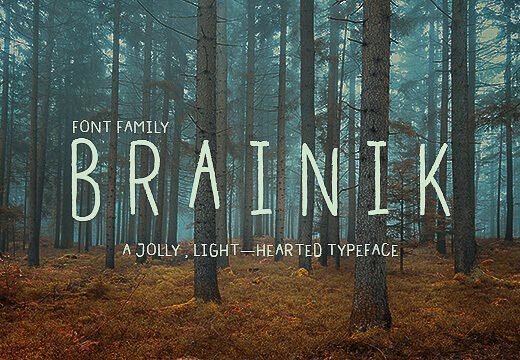
Unique Fonts Styles For Your Designs!
Add that jolly and light-hearted feeling to your next project with the amazing Brainik unique font styles family!
It features 10 unique font styles, so you can mix and match any way you like. From Bold to Condensed, to Regular or Thin (just to name a few), they are all in here. These fonts are a great choice for headlines, posters and labels, logos, cards, T-shirts and pretty much everything you can think of. The only limit is your imagination!